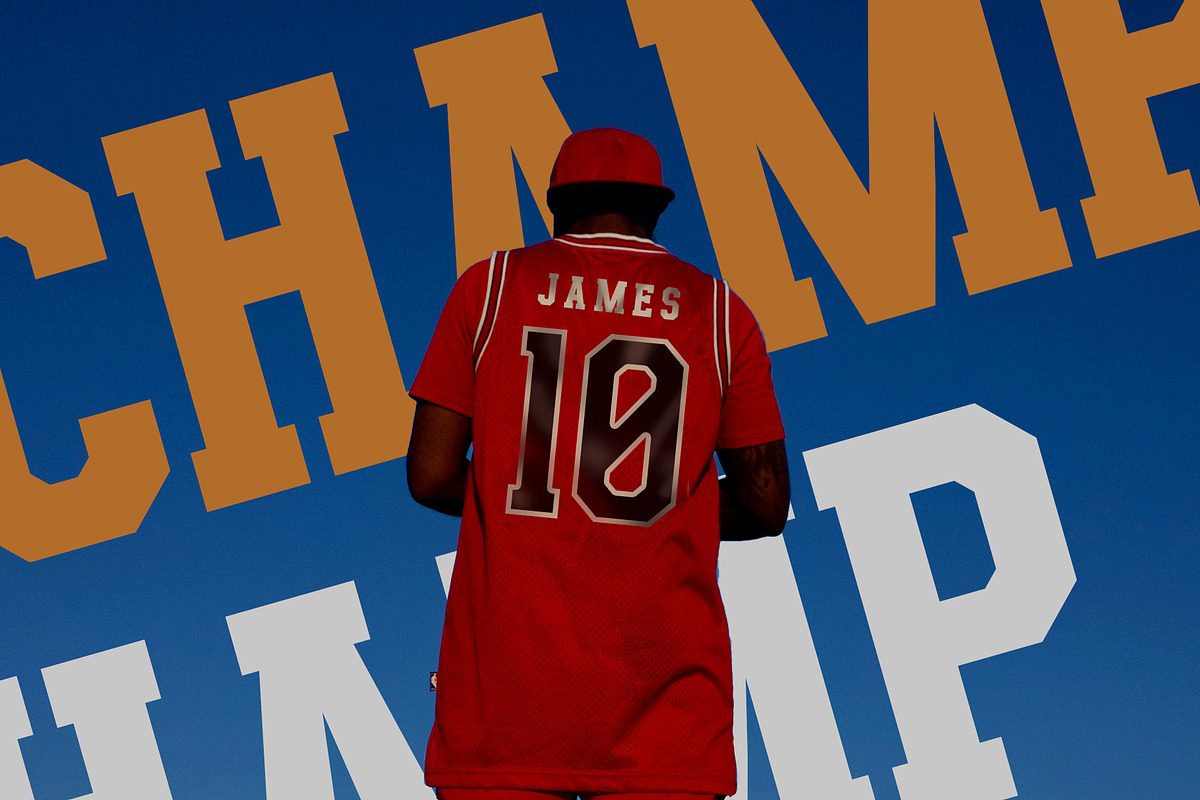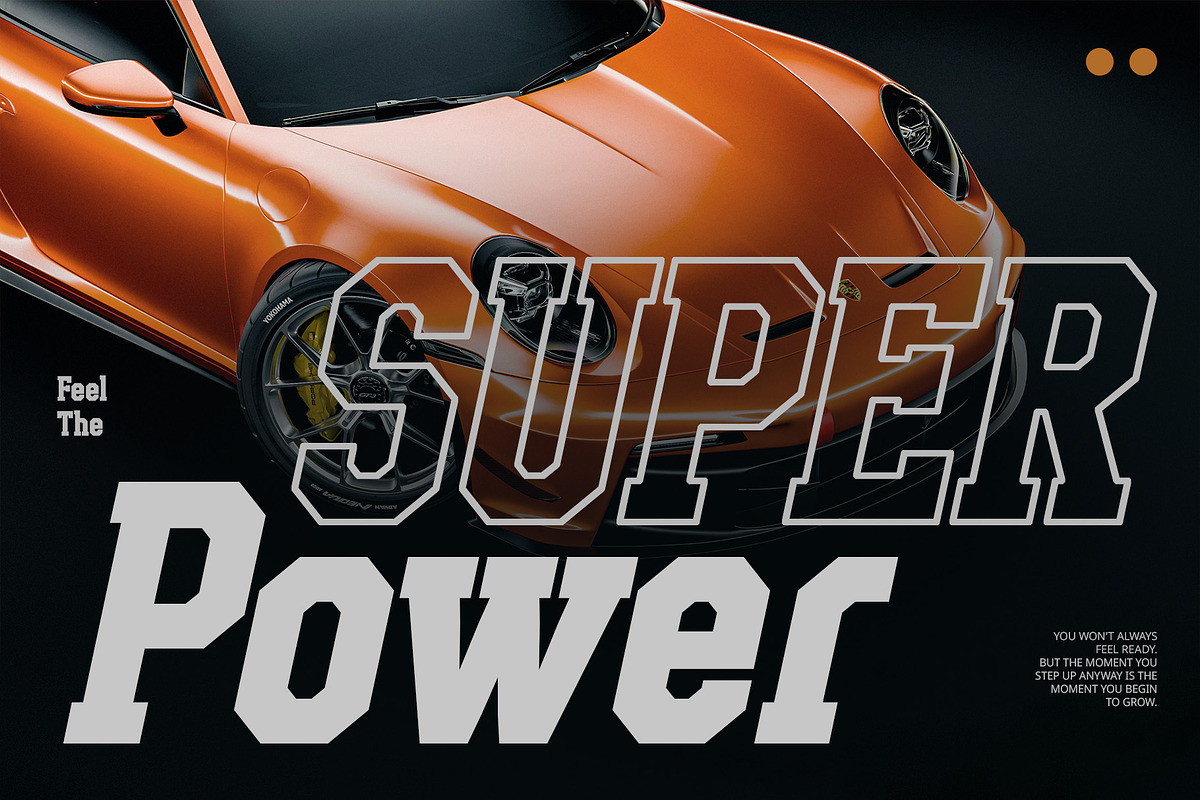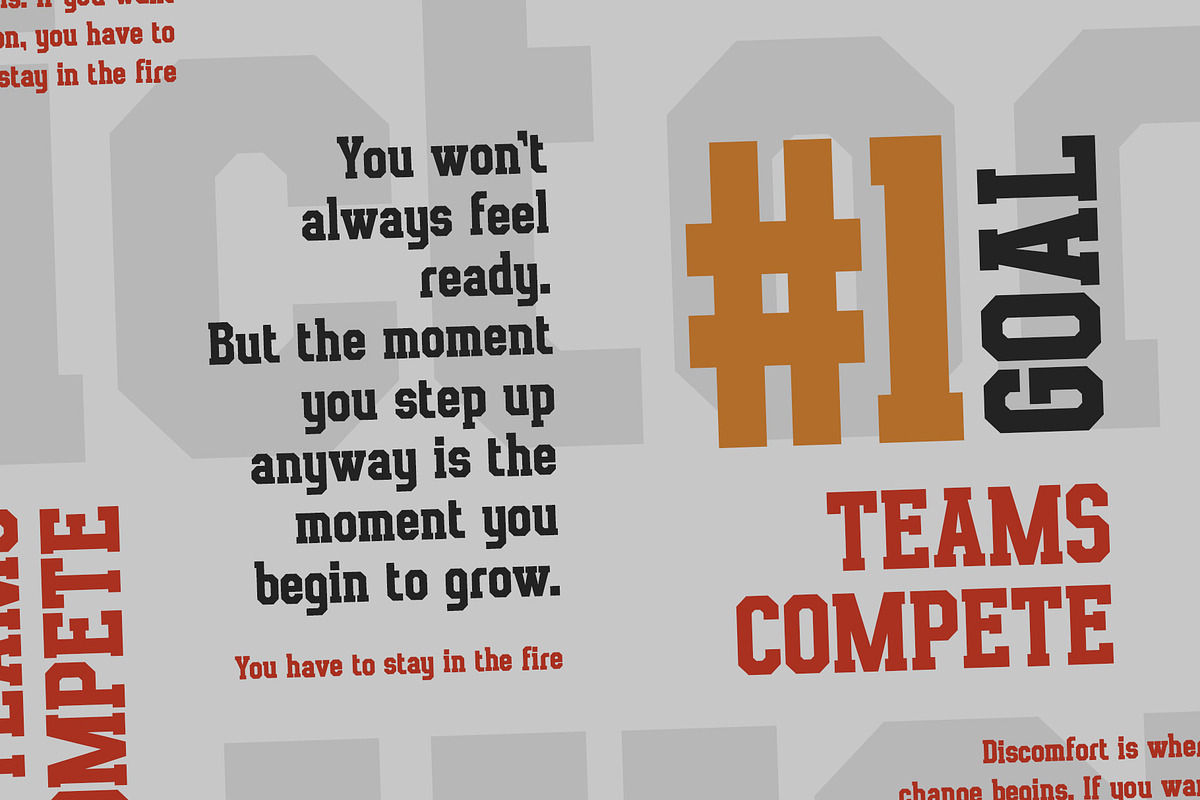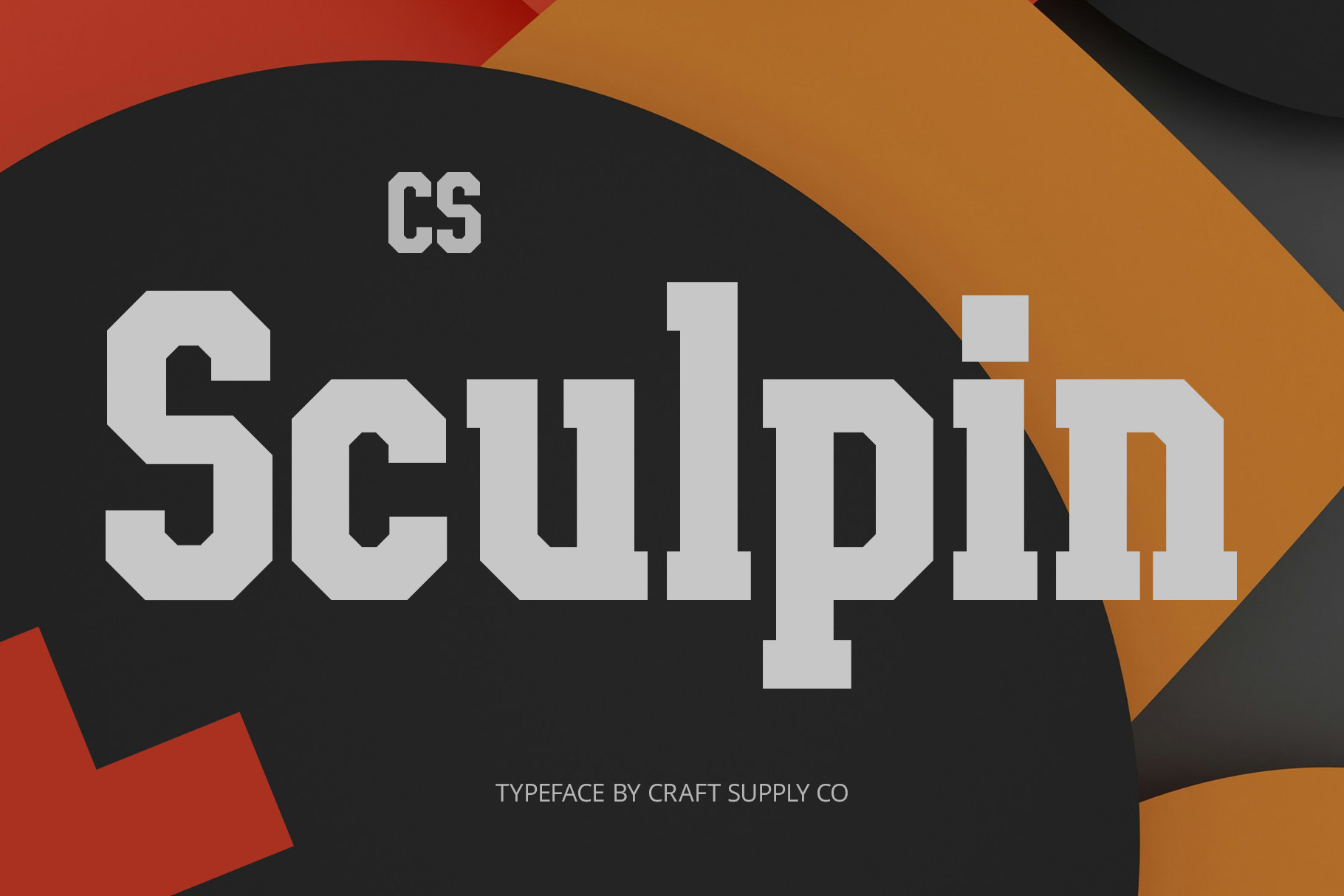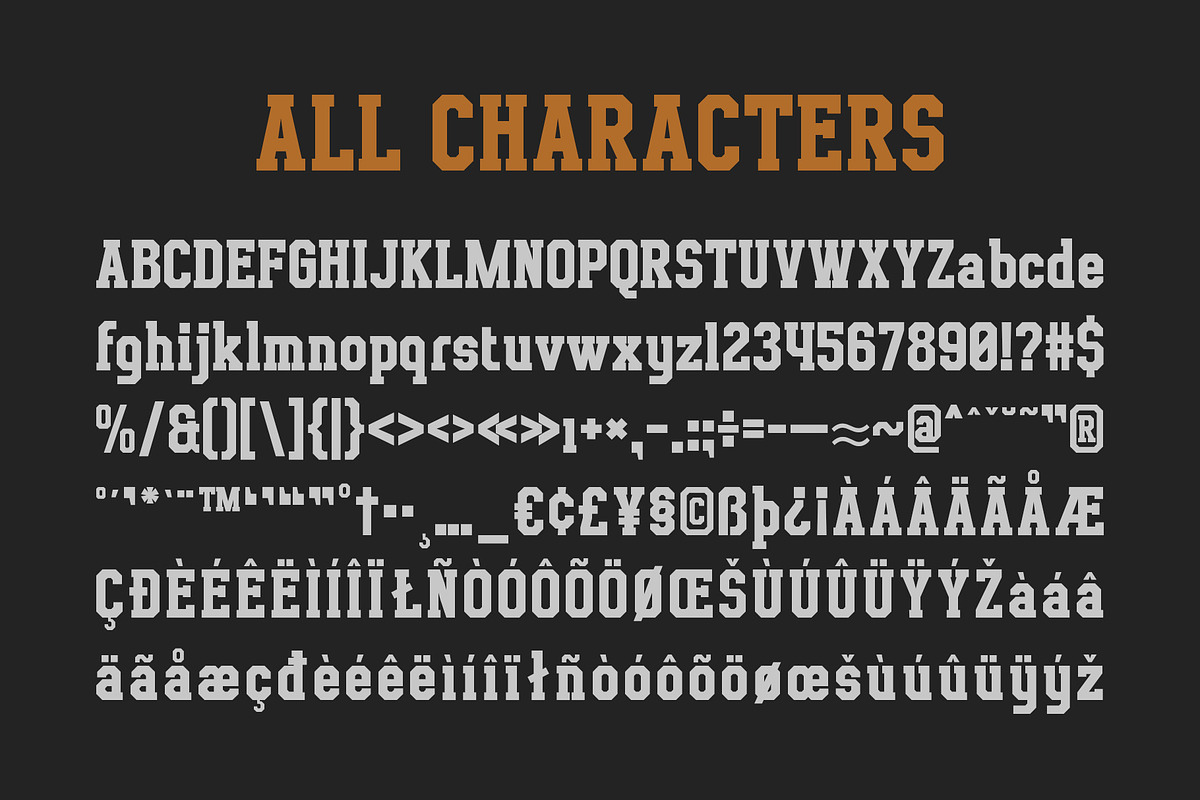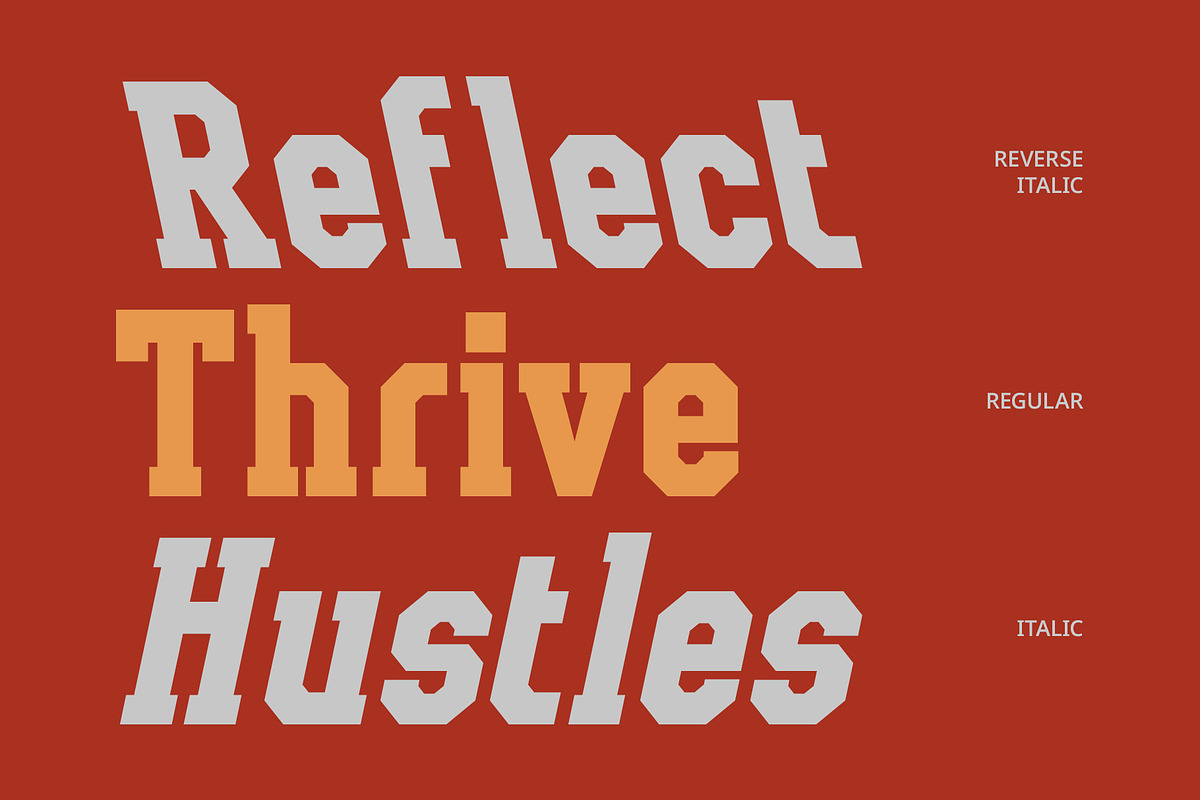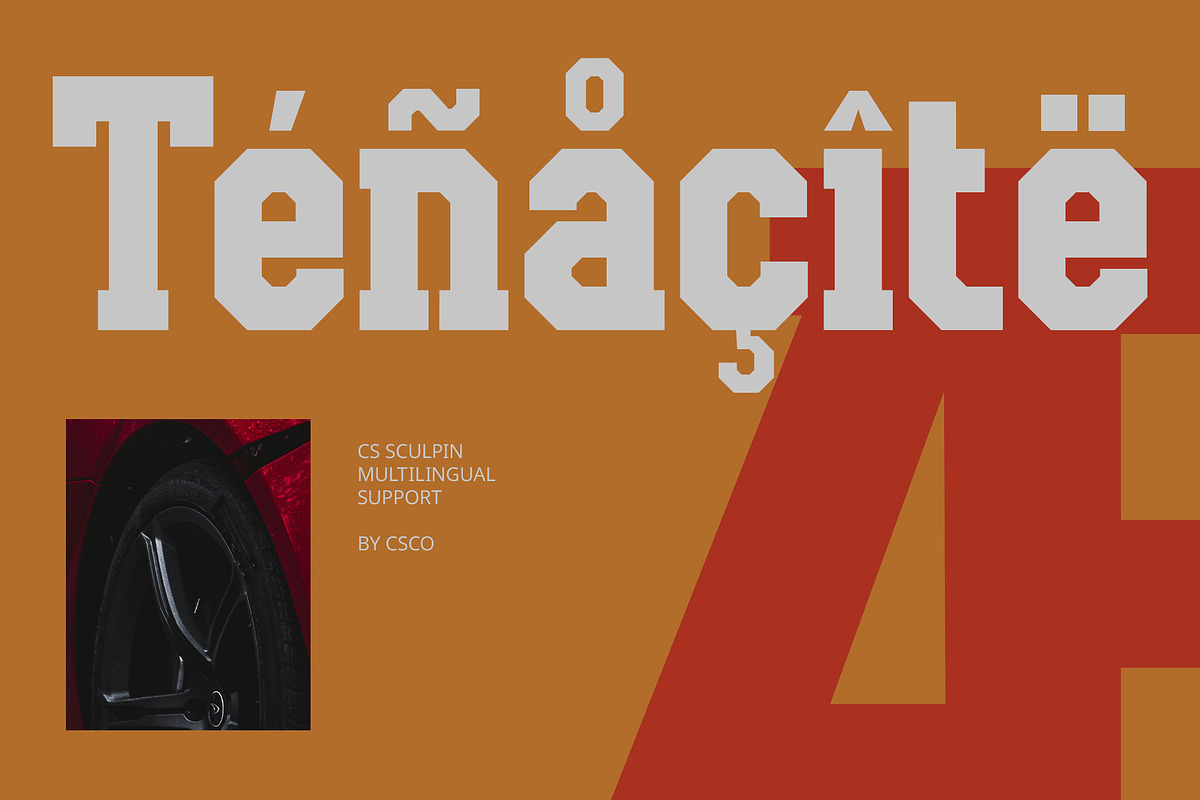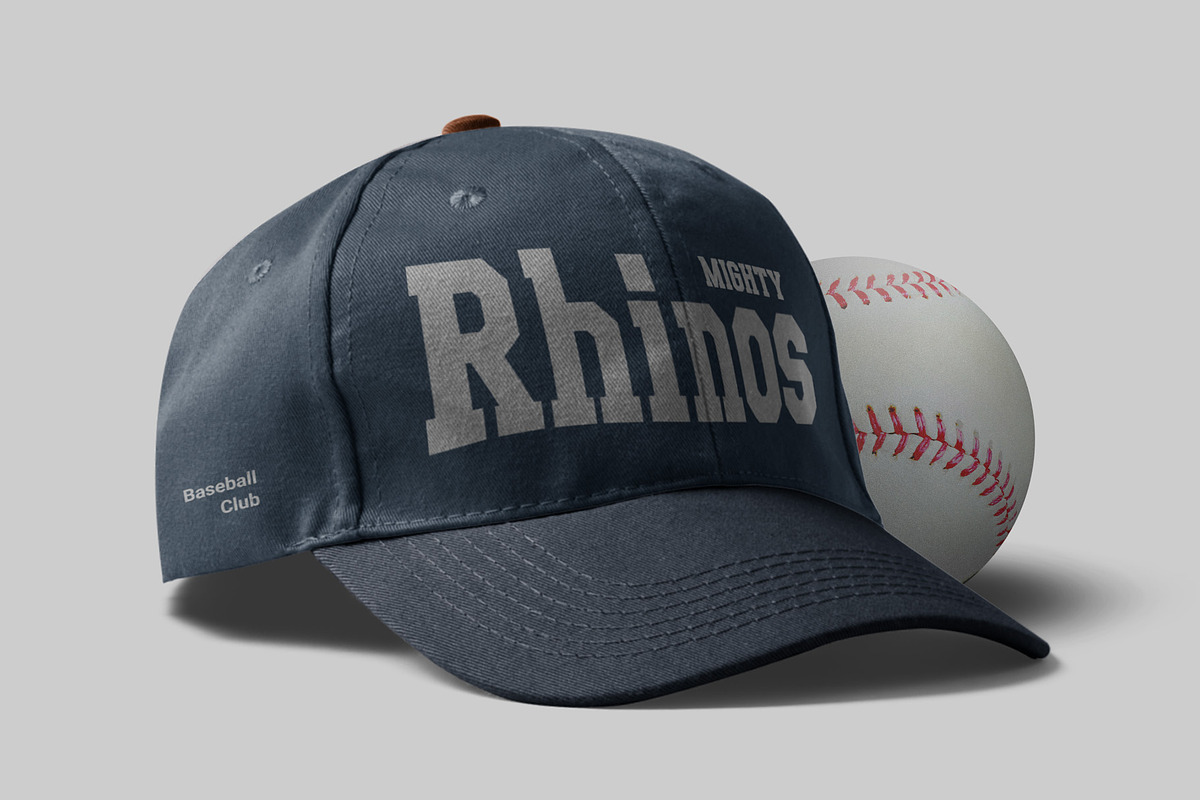
CS Sculpin – Bold Font
CS Sculpin – Bold Font: A Strong, Sharp Presence
Dynamic and Energetic Design CS Sculpin is a bold slab serif display font that commands attention with its strong, sharp, and energetic letterforms. The thick, solid shapes are designed to create a sense of stability while delivering a dynamic, forward-moving appearance. Perfect for high-impact designs, it captures a spirited and confident vibe that makes a lasting impression.
Conveys Strength and Toughness With larger letterforms and a sturdy slab serif structure, CS Sculpin exudes toughness and reliability. Its heavy form is made to stand out, offering a visual weight that adds power to any design, from corporate branding to sports-related themes.
Versatile for Active and Professional Branding CS Sculpin excels in environments that demand an active, robust presence. It is commonly used in sports logos, team branding, and corporate identities where professionalism is paired with an energetic, dynamic vibe. This font’s clean yet forceful design makes it versatile for use across various design applications, including posters, advertisements, logos, and headlines.
Bring Energy and Stability to Your Designs With its unique combination of strength, boldness, and energy, CS Sculpin is the font to use when you need to project confidence and vitality. Let your designs speak with authority and purpose, creating a lasting impression wherever they appear.
- CS Sculpin Regular
- CS Sculpin Italic
- CS Sculpin Reverse Italic